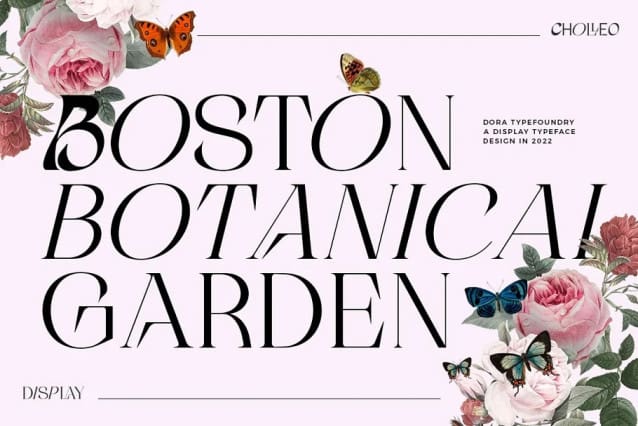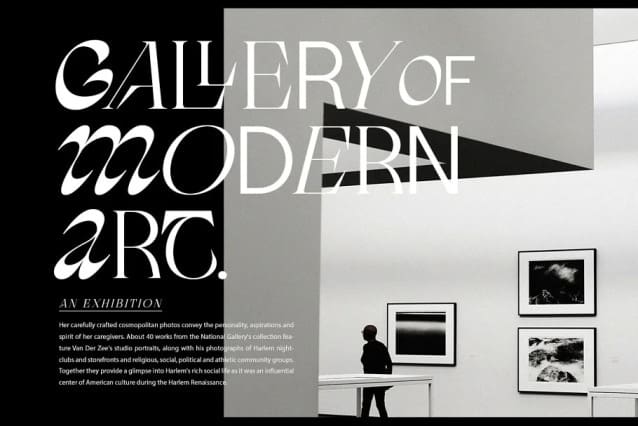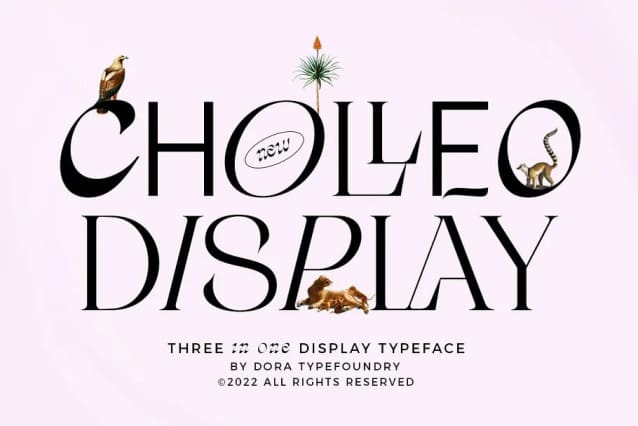
Cholleo Display Font
Cholleo Display Font is a unique modern sans and serif type in different mixed types to combine in one font, it is recommended you can use this font for magazines, posters, logos, titles, quotes and suitable for headlines.which makes your text stand out! you can see on the picture.